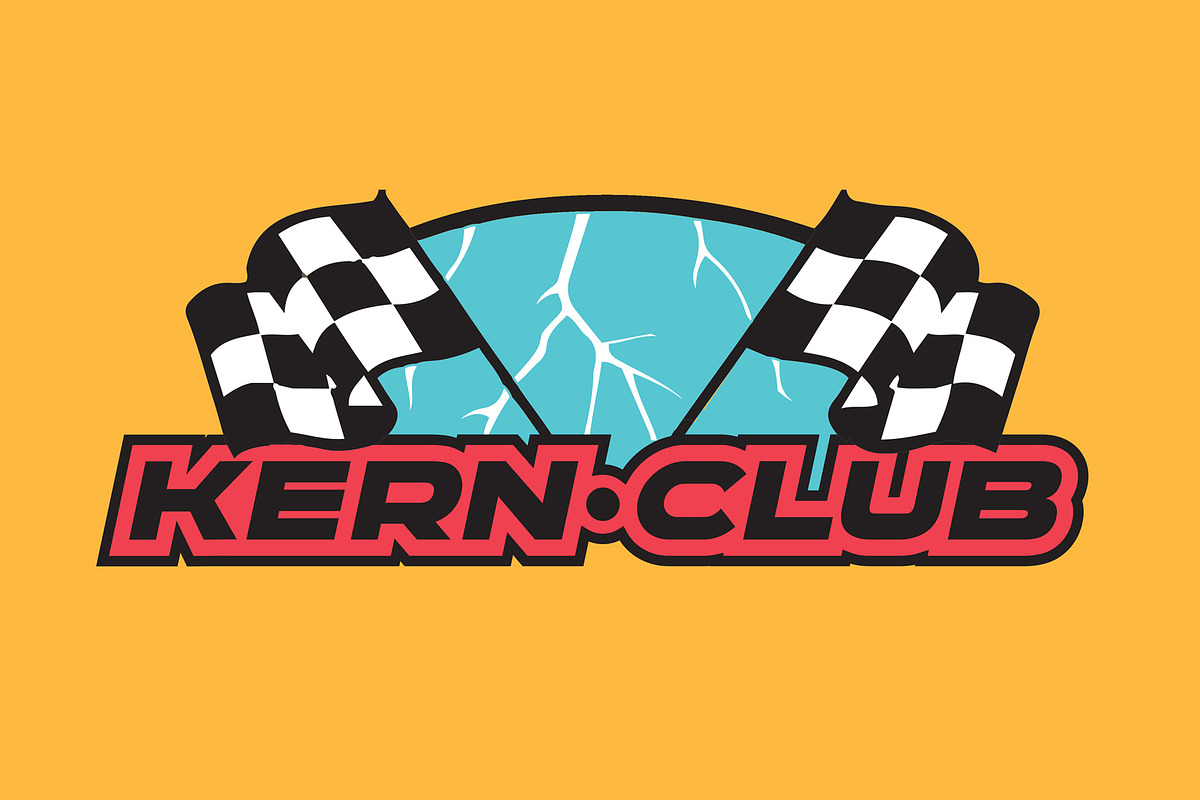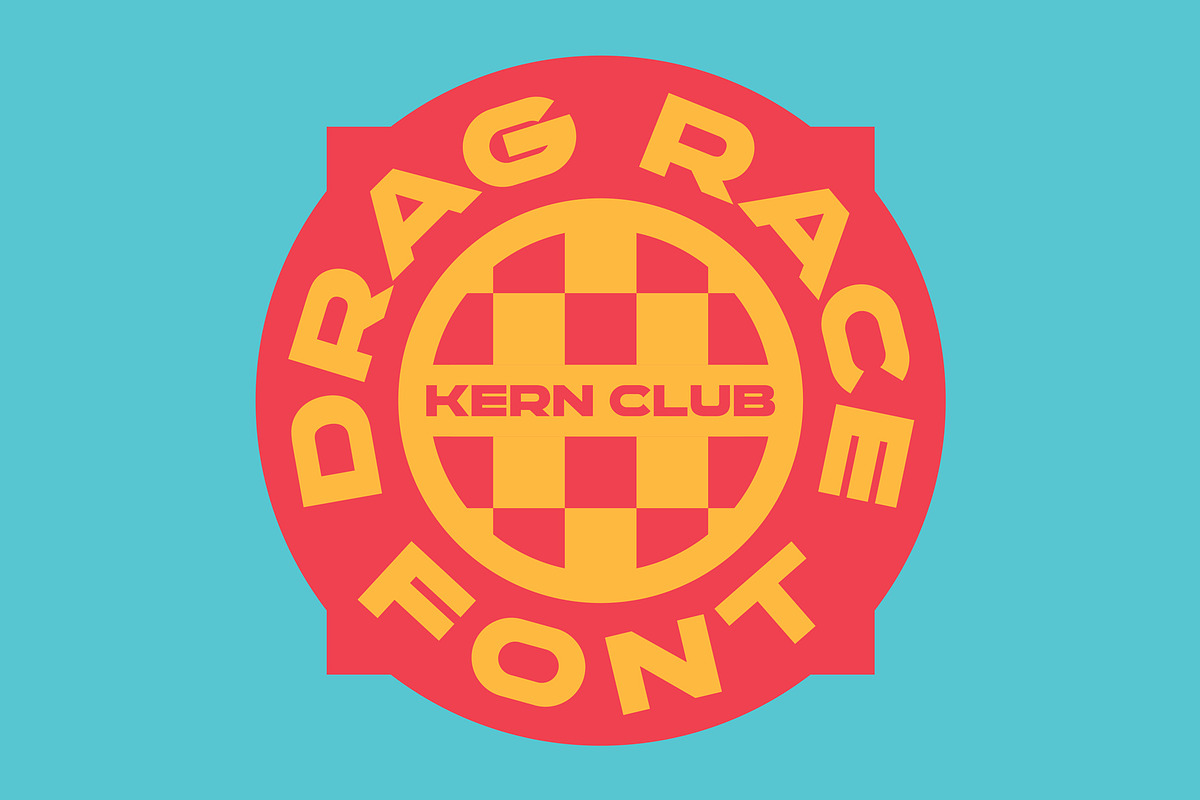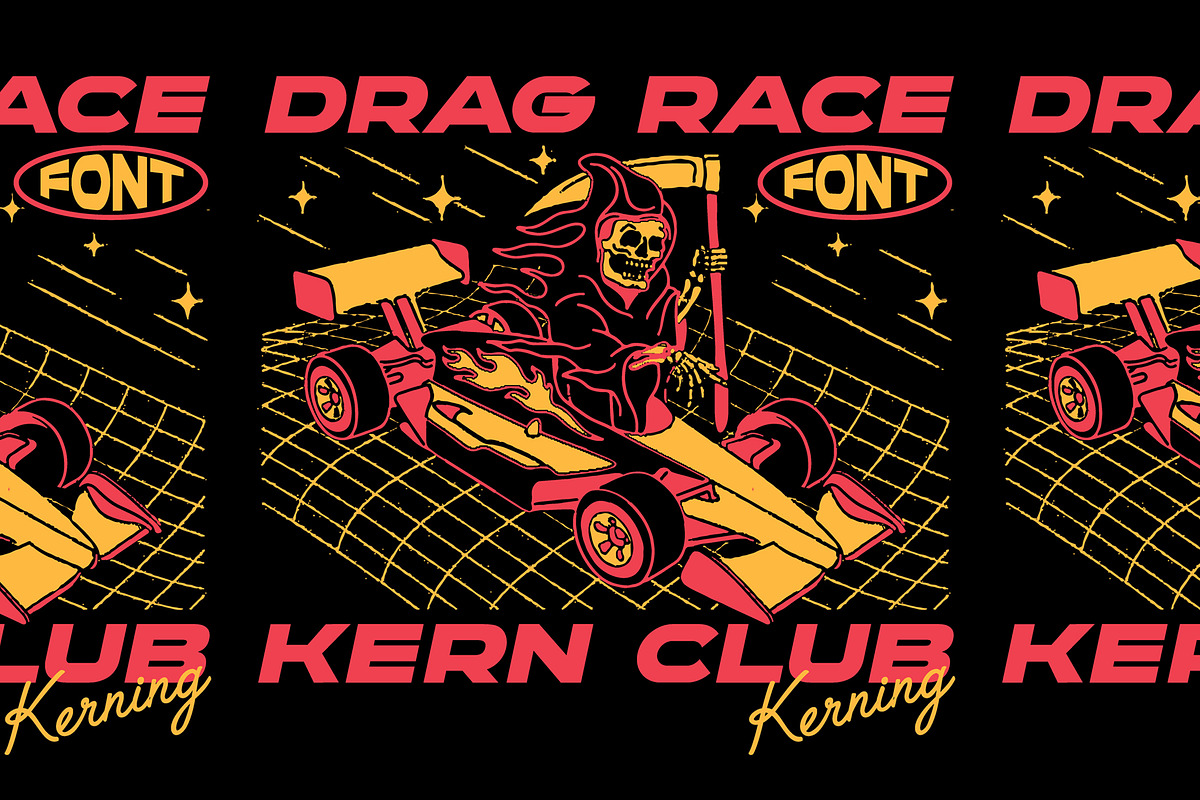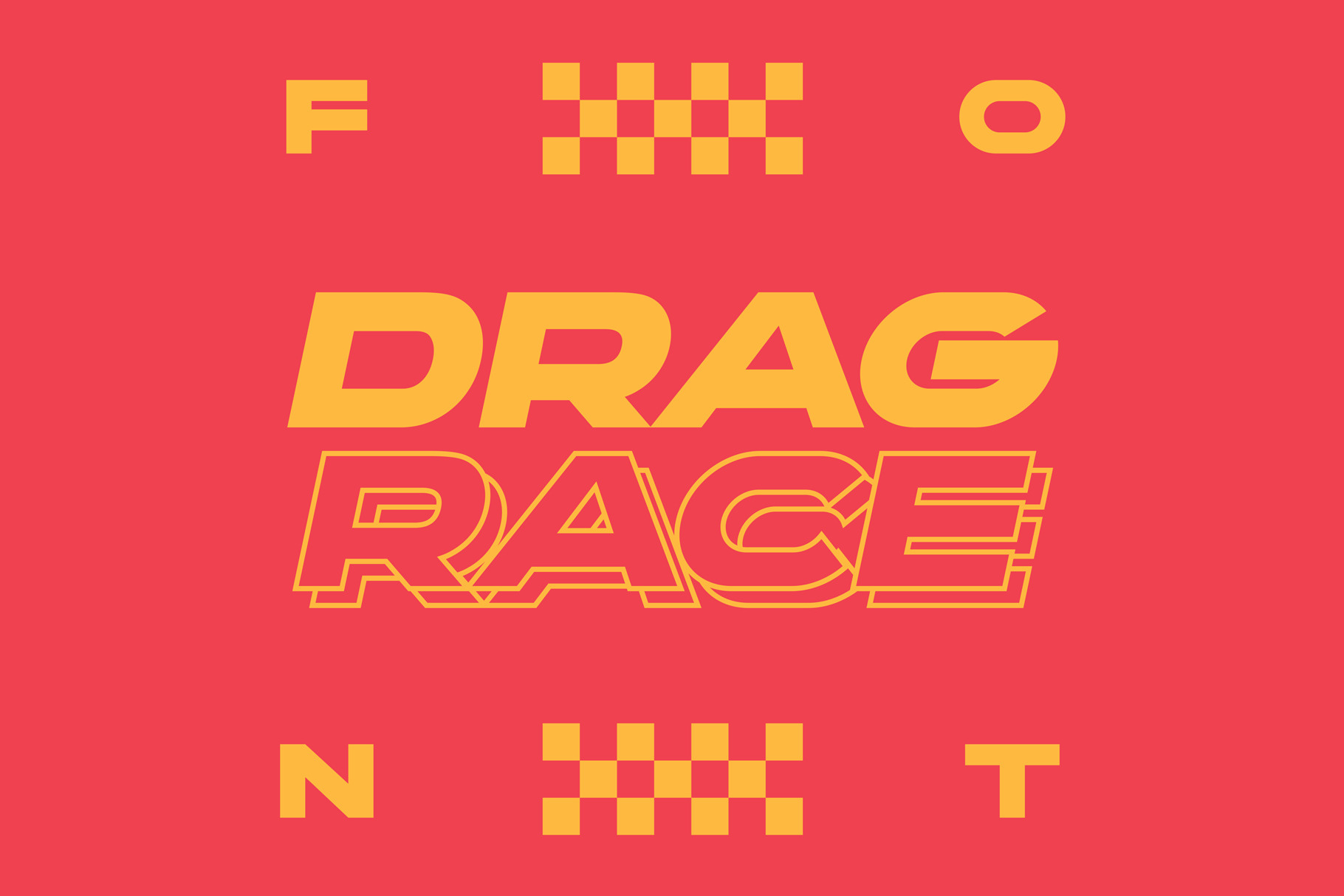
Drag Race Font
An extended display font inspired by 90’s nascar tees!
- Standard Uppercase Character Set A-Z
- Italics Lowercase Character set A-Z
- Includes minimal punctuation and no numerals